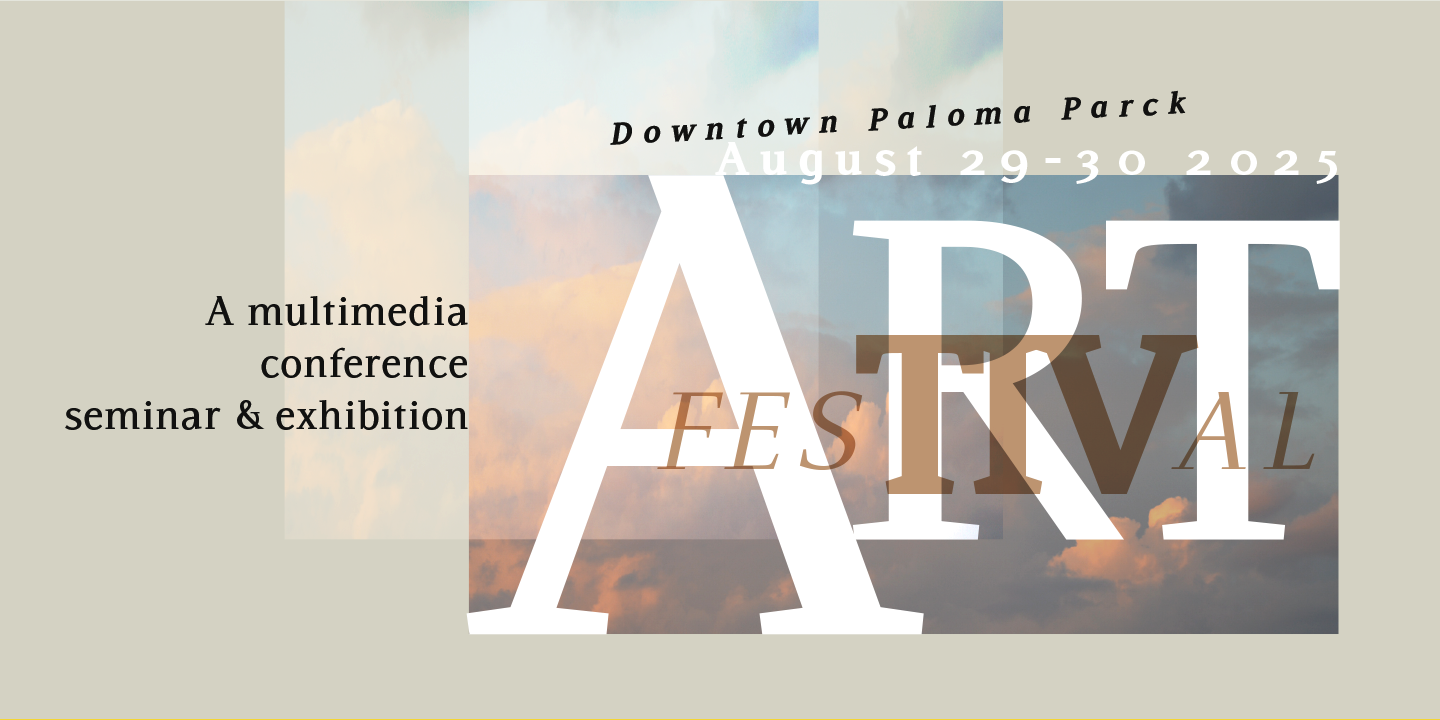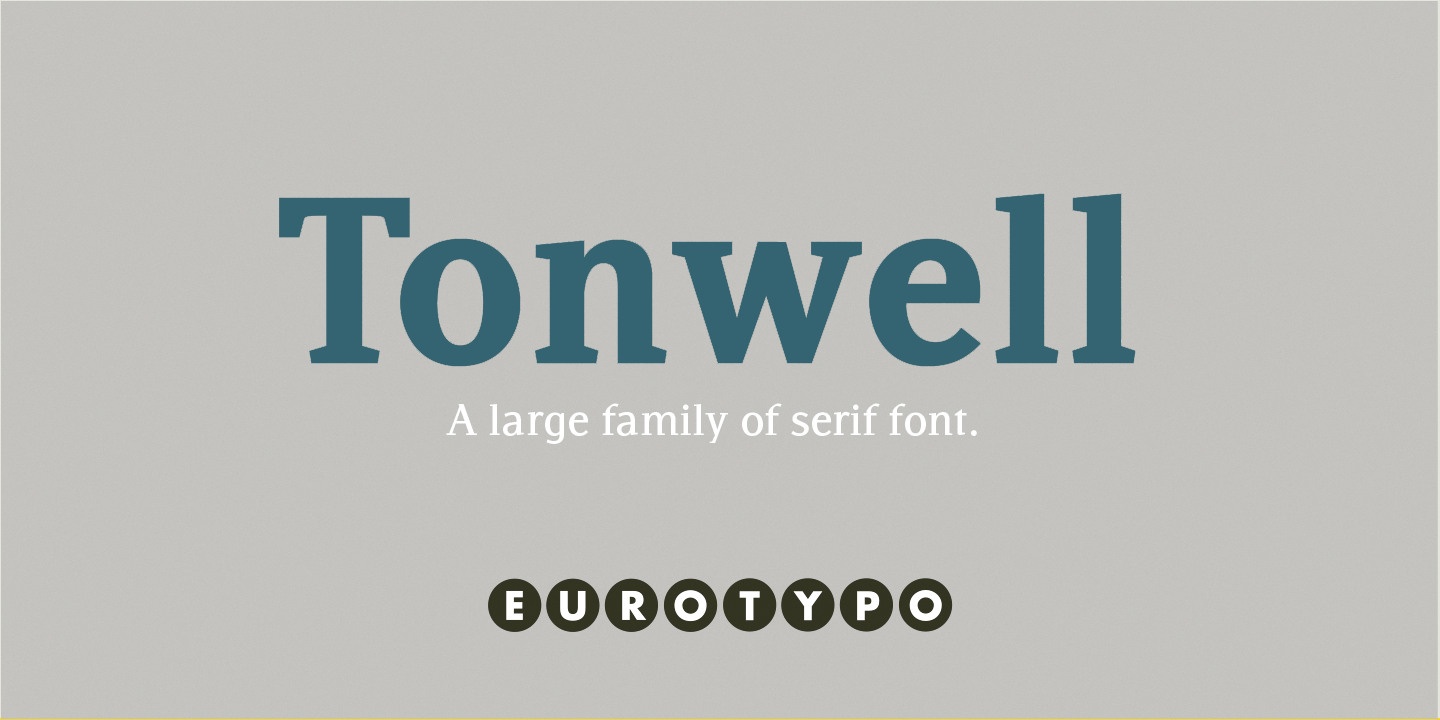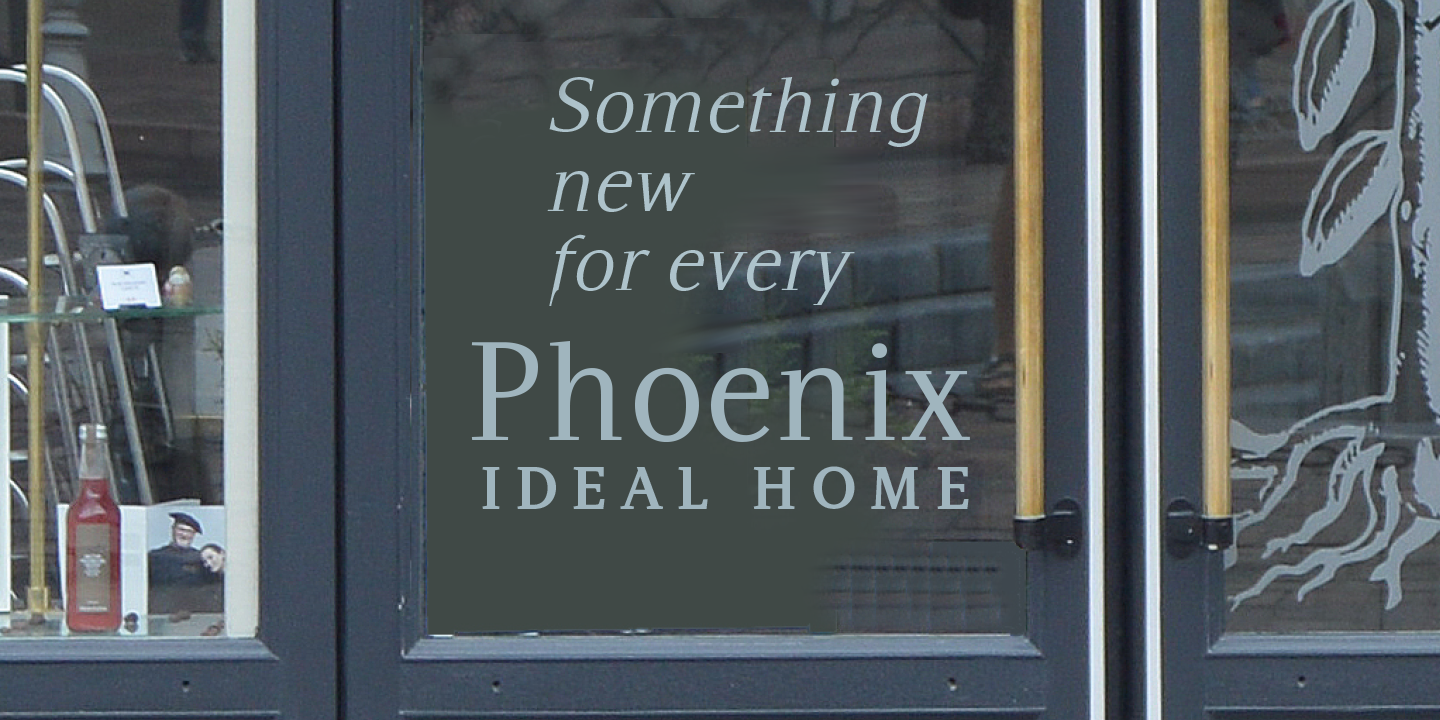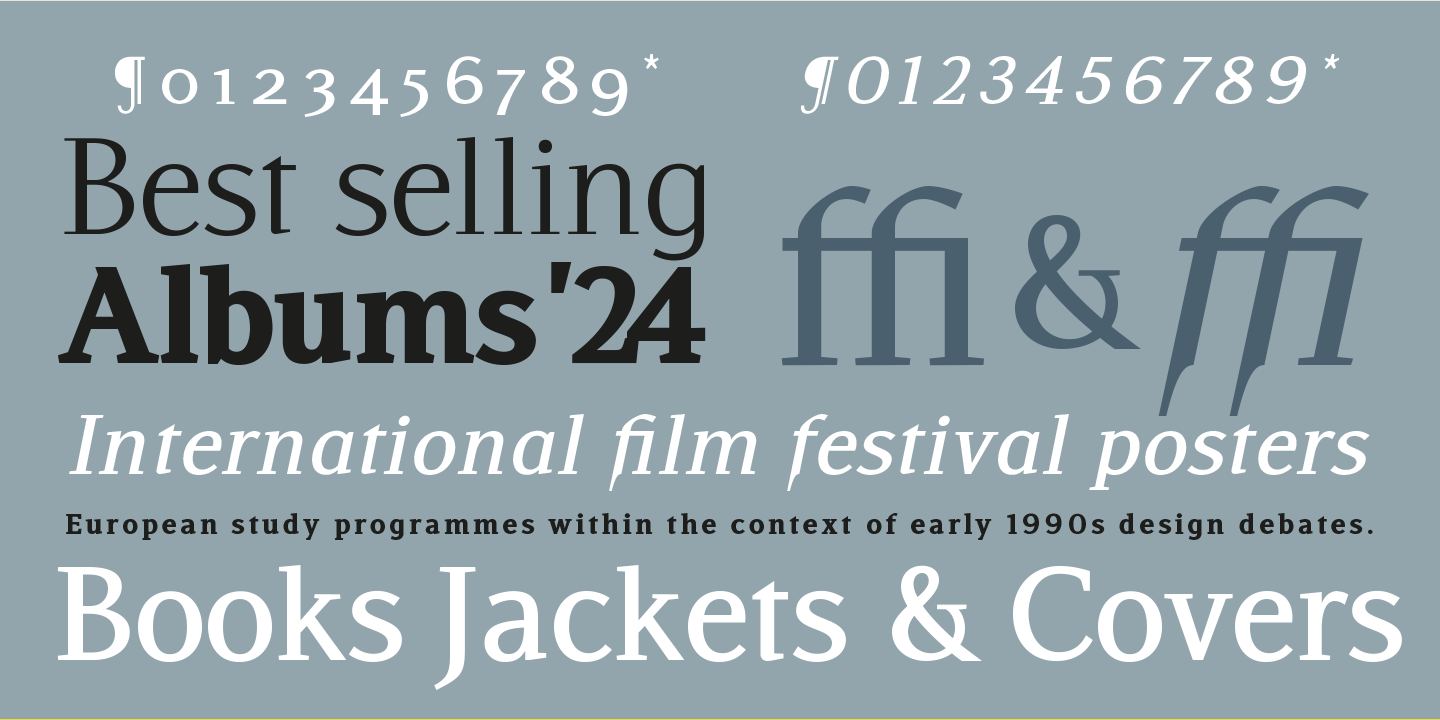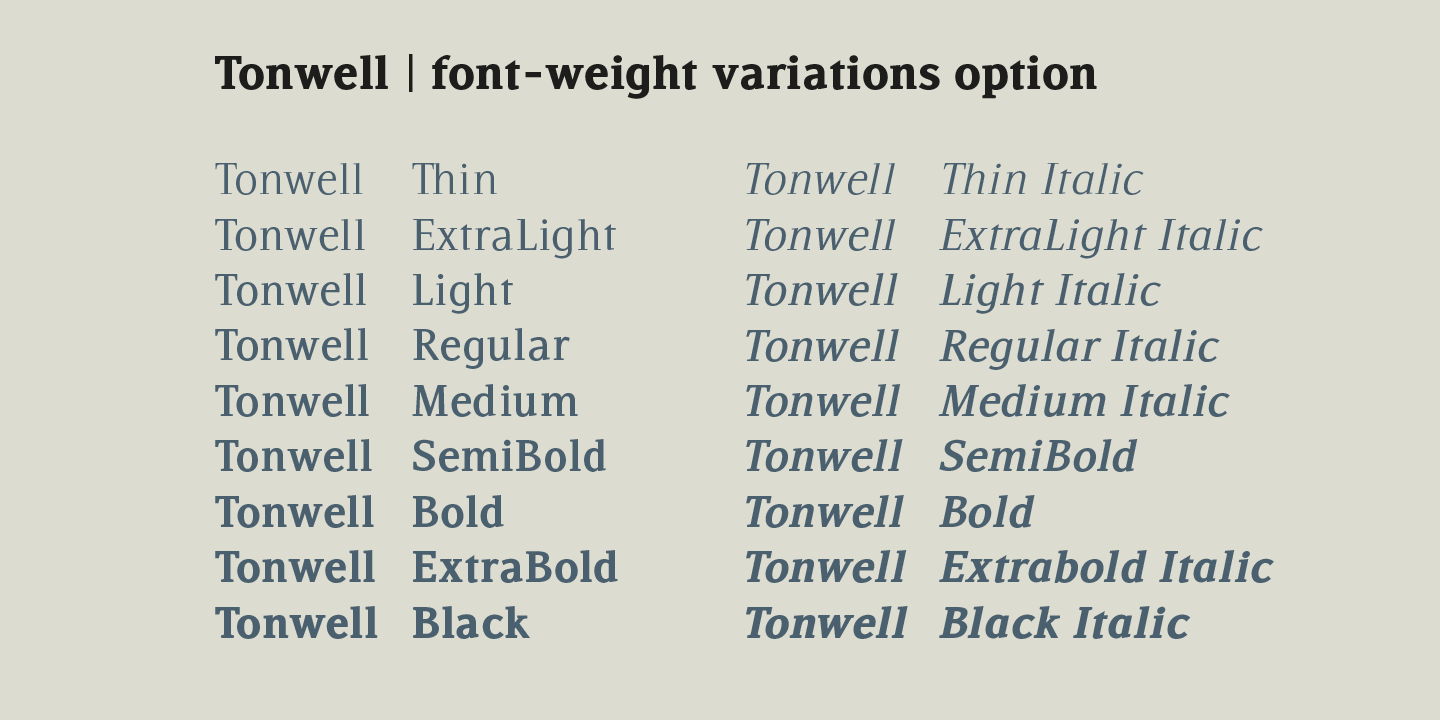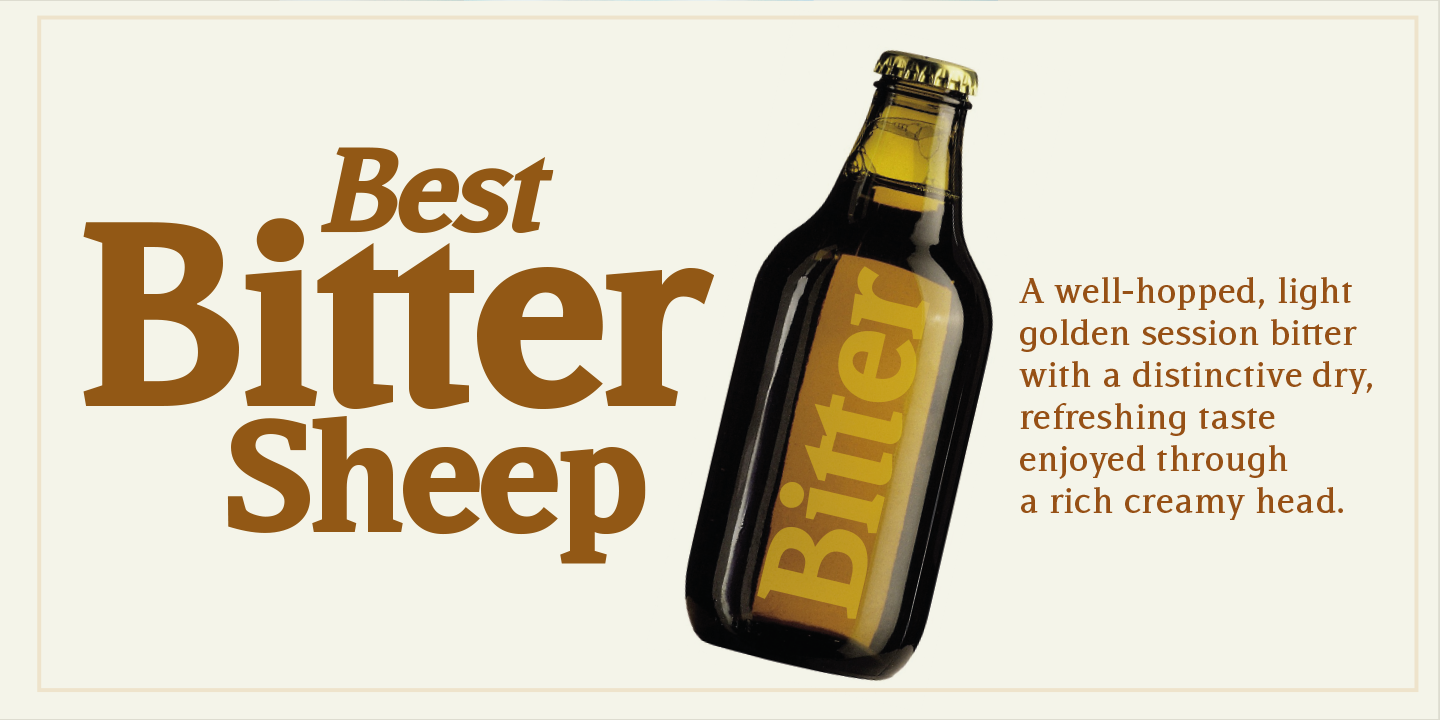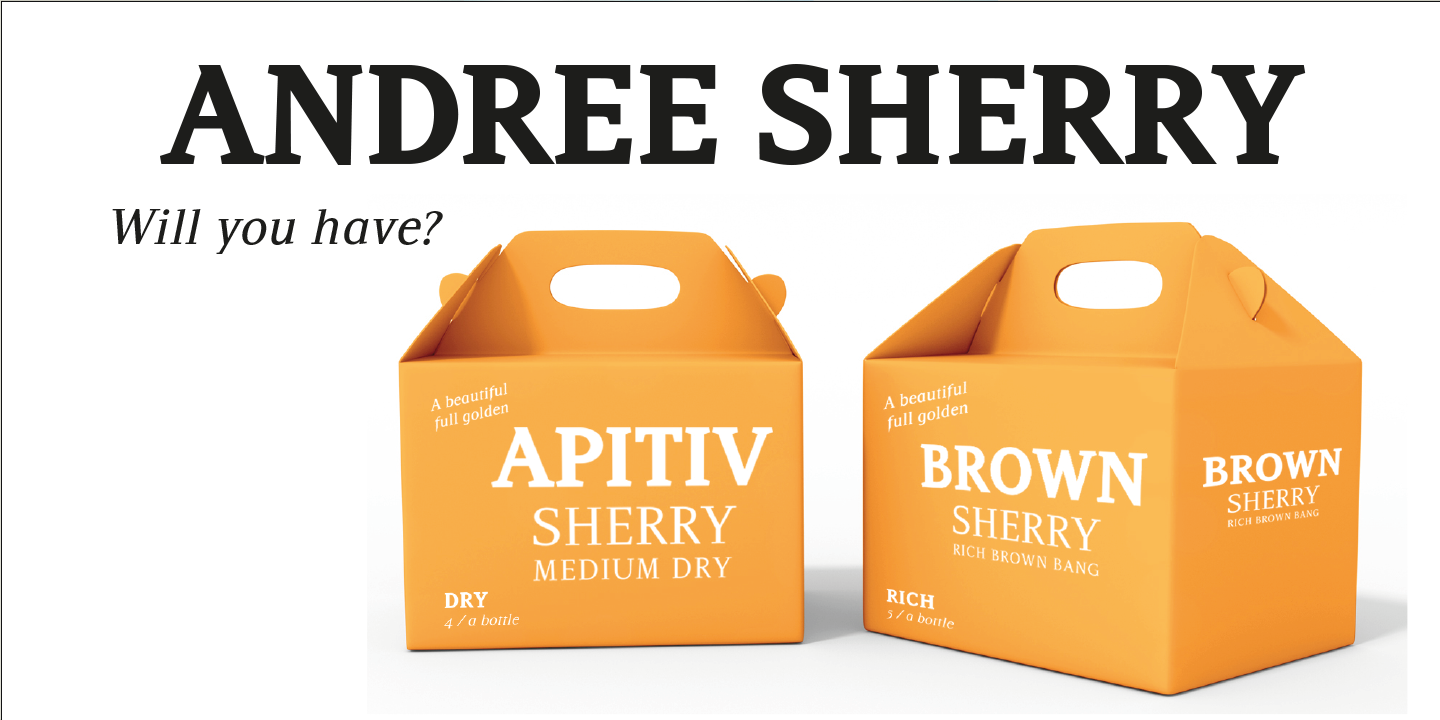
Tonwell
A Versatile Modern Serif
Tonwell is a contemporary and meticulously designed font family created to meet the demands of modern design across multiple mediums. It is particularly well-suited for use in magazines, printed materials, packaging, and web pages, offering exceptional readability in both body text and display applications, such as titles and headlines. The typeface strikes a perfect balance between functionality and aesthetic appeal, making it a reliable choice for designers seeking a versatile and professional typeface.
9 Weights & Distinctive Character
What sets Tonwell apart is its distinctive character, achieved through carefully crafted weight variations and its subtle yet impactful serif design. The family comprises nine weights, ranging from Thin to Black, ensuring an extensive range of options to adapt to a wide variety of visual contexts and design needs.
Dynamic Italics & Sophistication
In addition, each weight is paired with a corresponding Italic version, further enhancing its versatility. These Italic styles introduce a dynamic and elegant flair, making them ideal for creating contrast or emphasis in typographic compositions. With its robust personality and comprehensive range, Tonwell is a sophisticated and flexible typeface that elevates any project it is applied to.